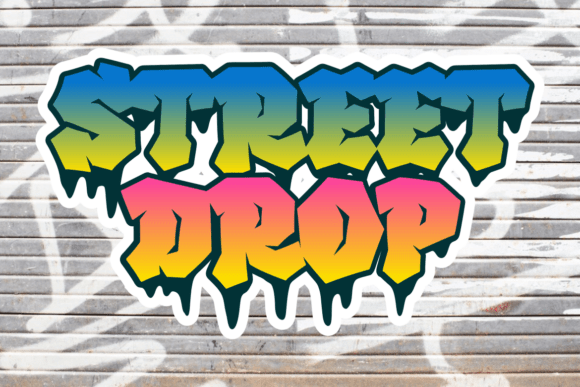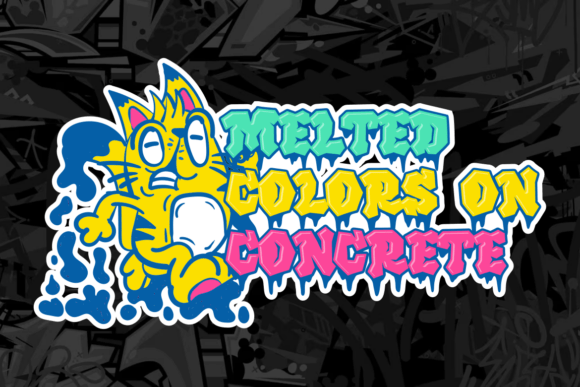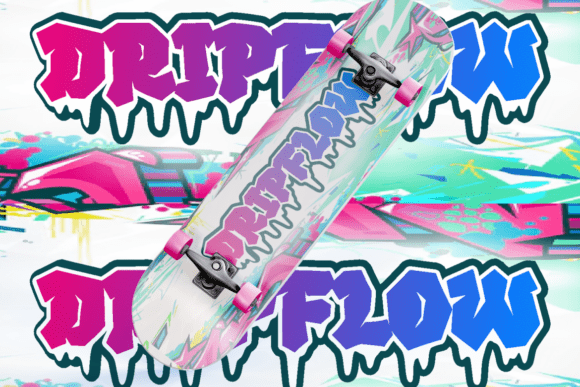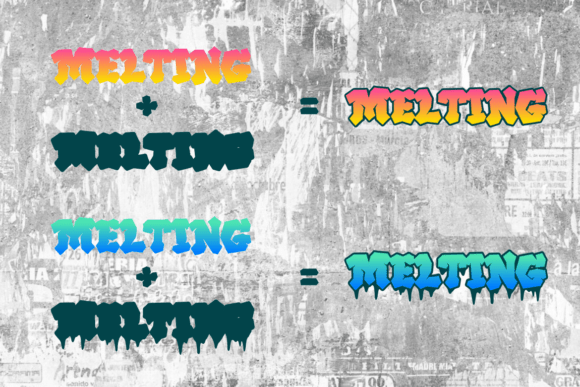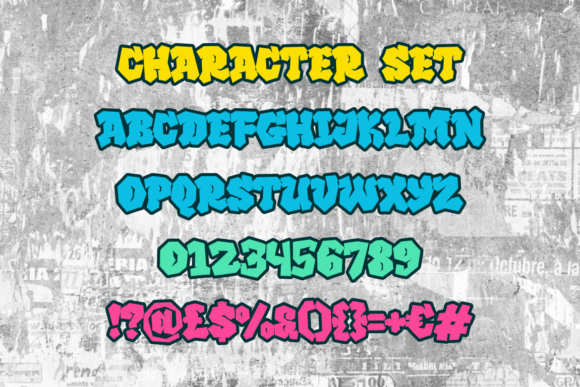
Introduction to Melting Graffiti Font
Bring urban energy and street-inspired style to your designs with Melting Graffiti, a vibrant layered drip graffiti font that truly captures the essence of city art culture.
With bold, edgy letters, the font showcases sharp angular forms, thick strokes, and uniquely eye-catching melting drips that make every character appear as if fresh paint is dripping right off the surface This font brilliantly combines a dynamic graffiti look with a visually compelling melting effect, making it perfect for projects that need an urban, artistic, and youthful vibe.